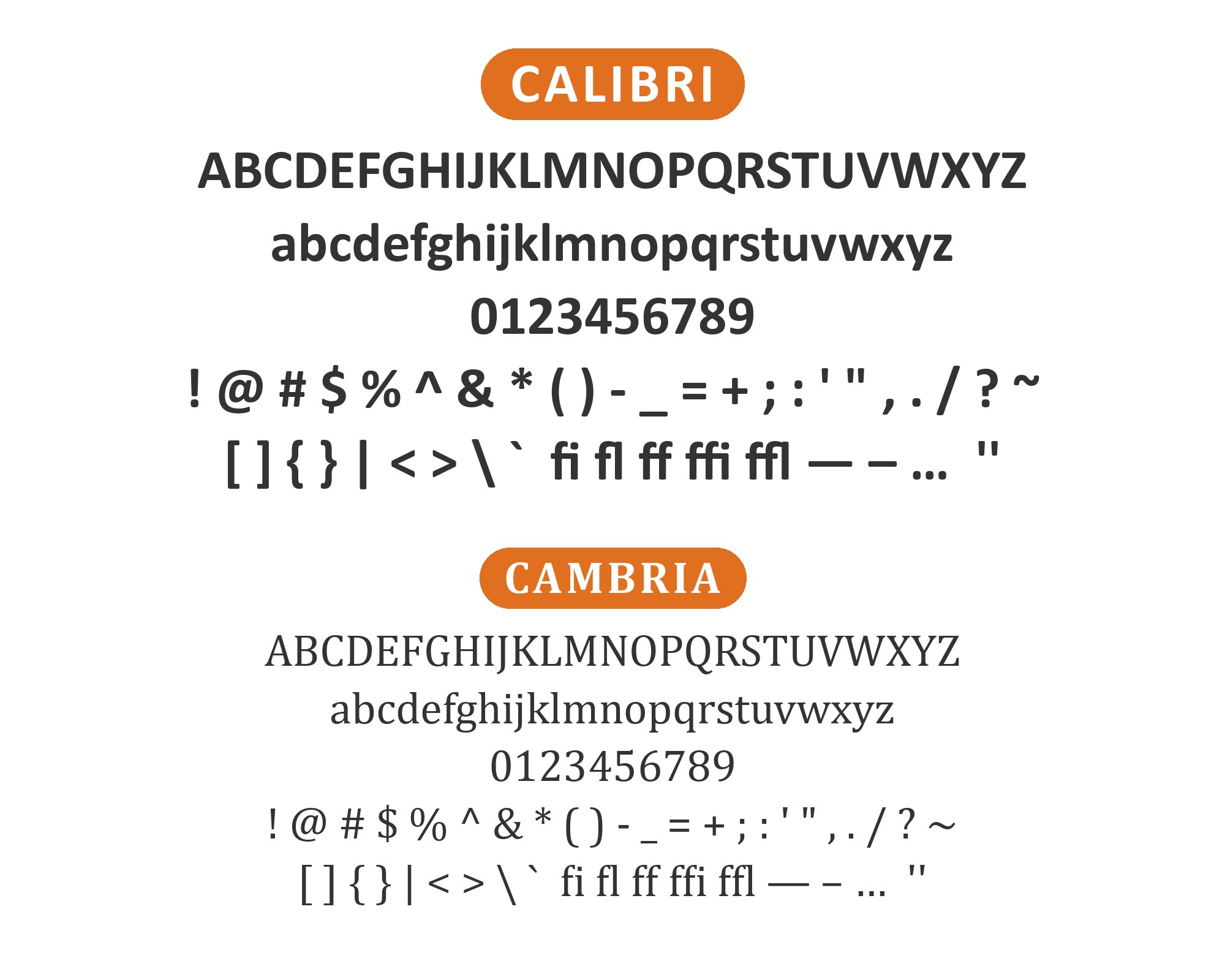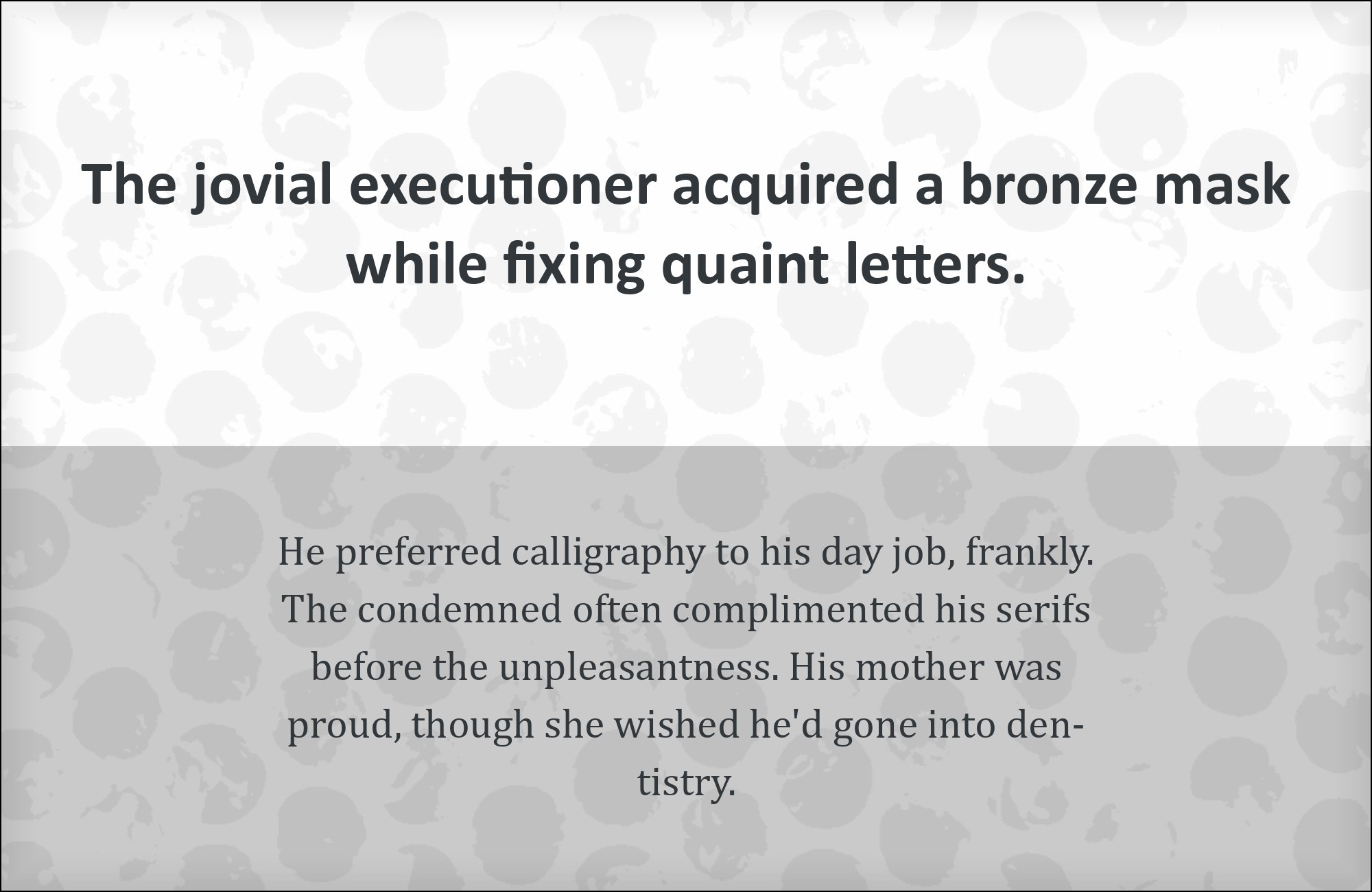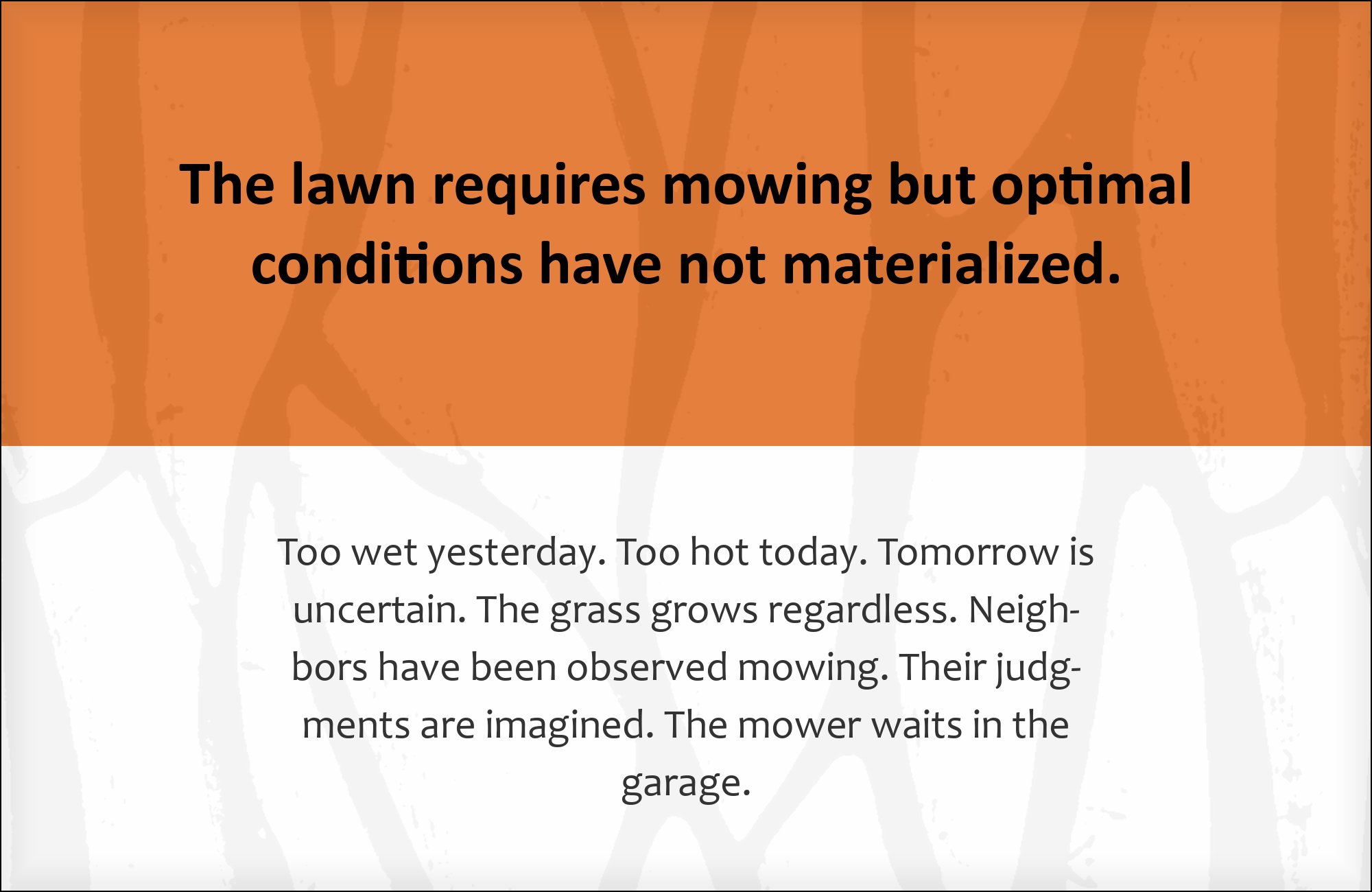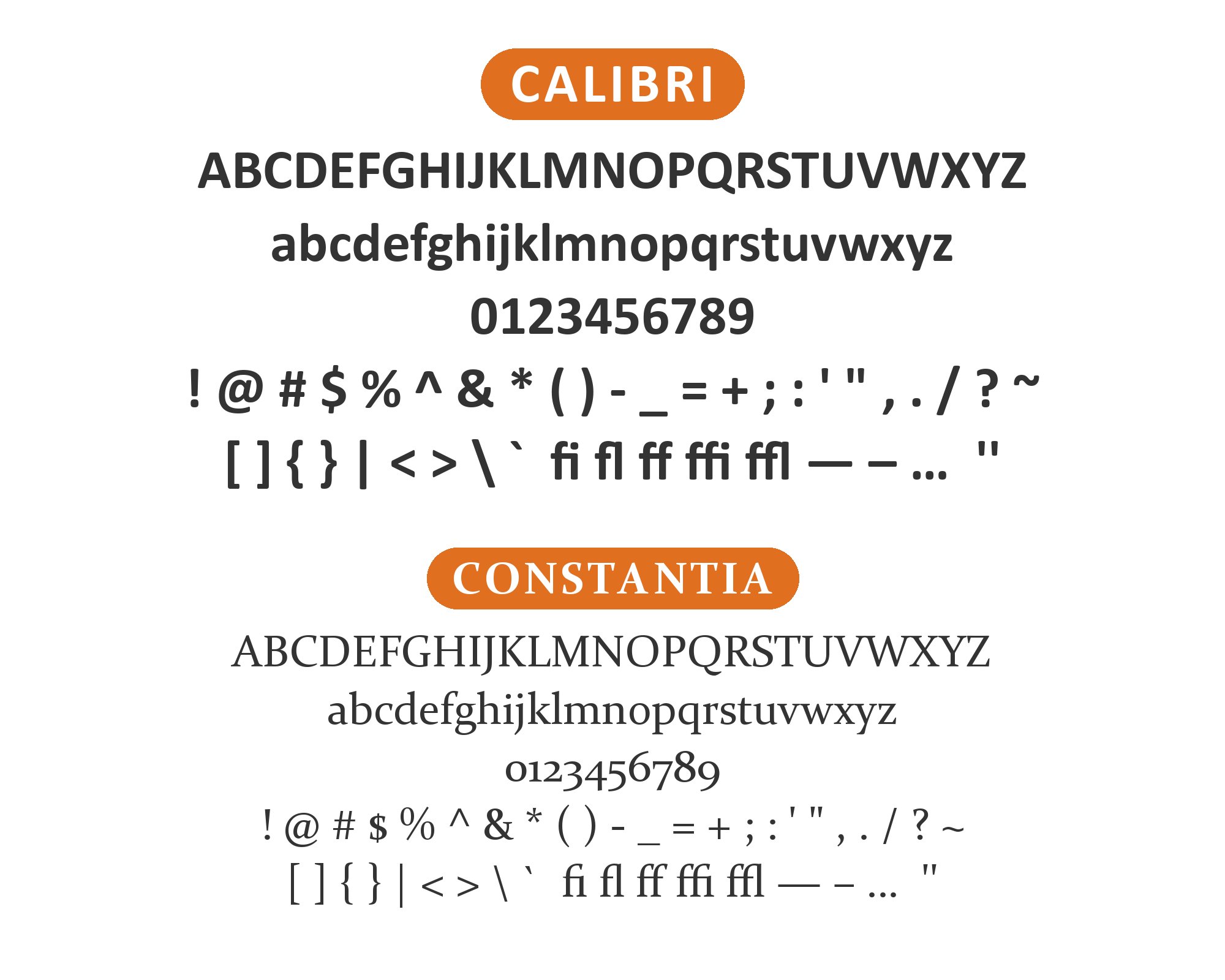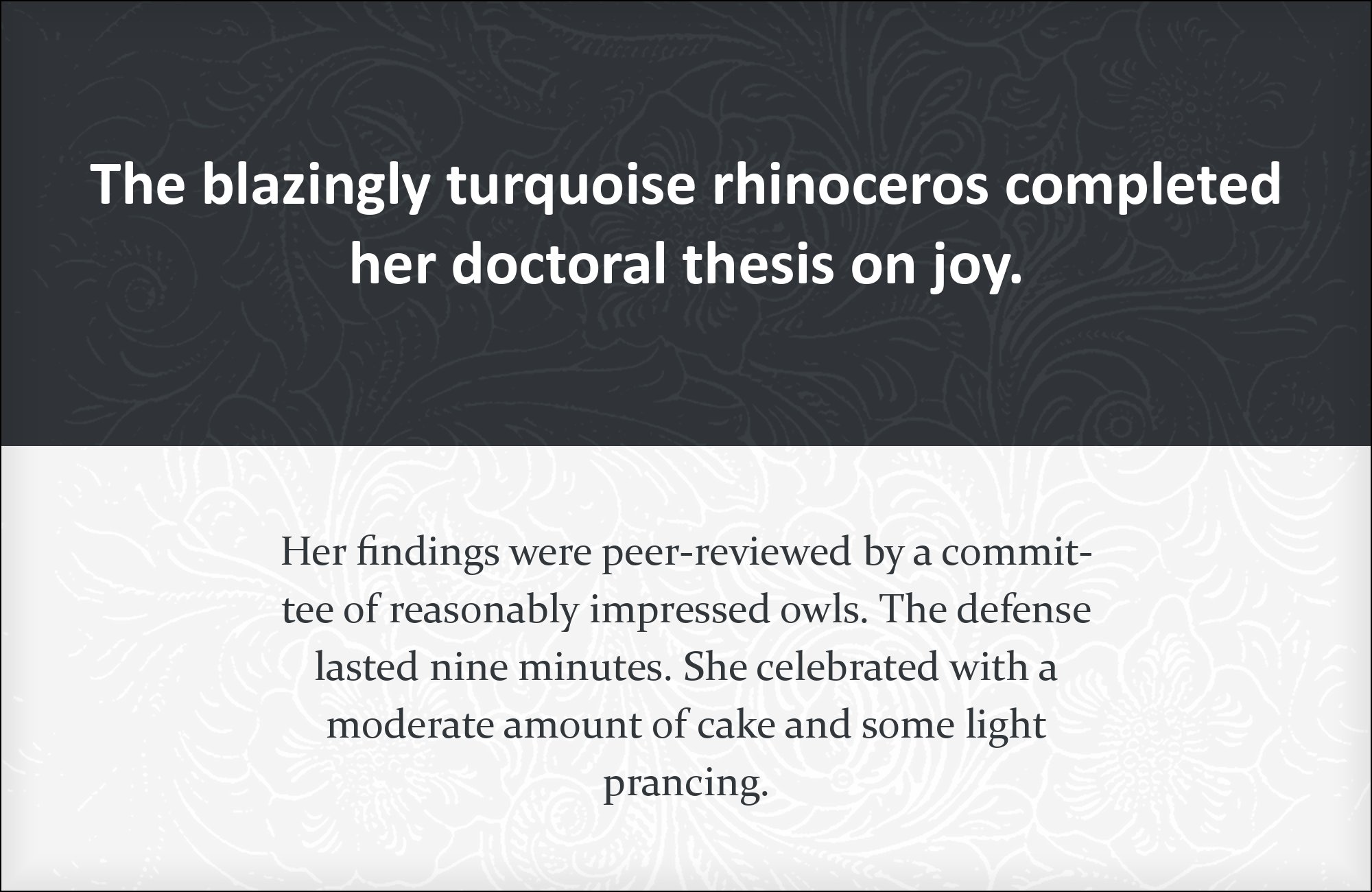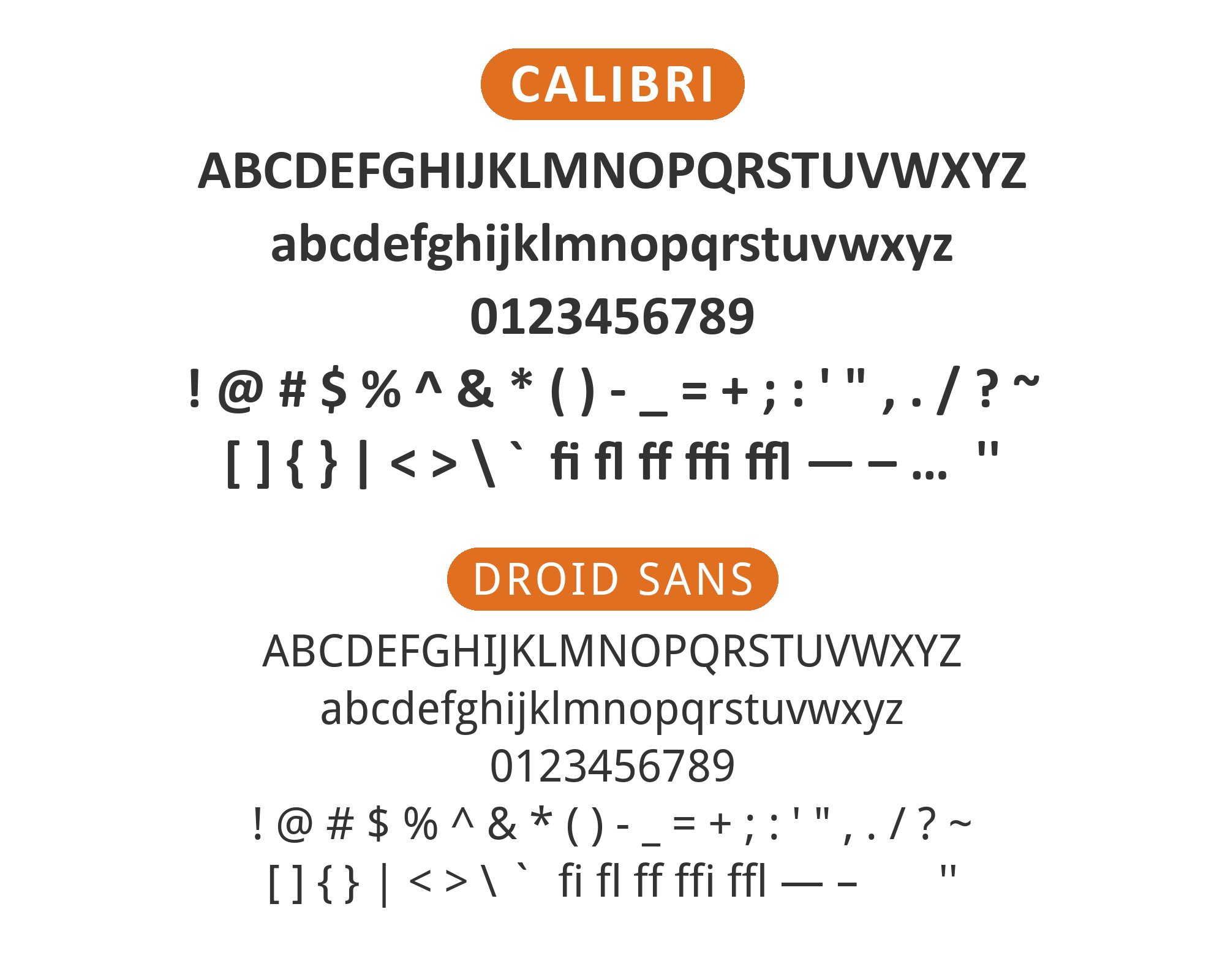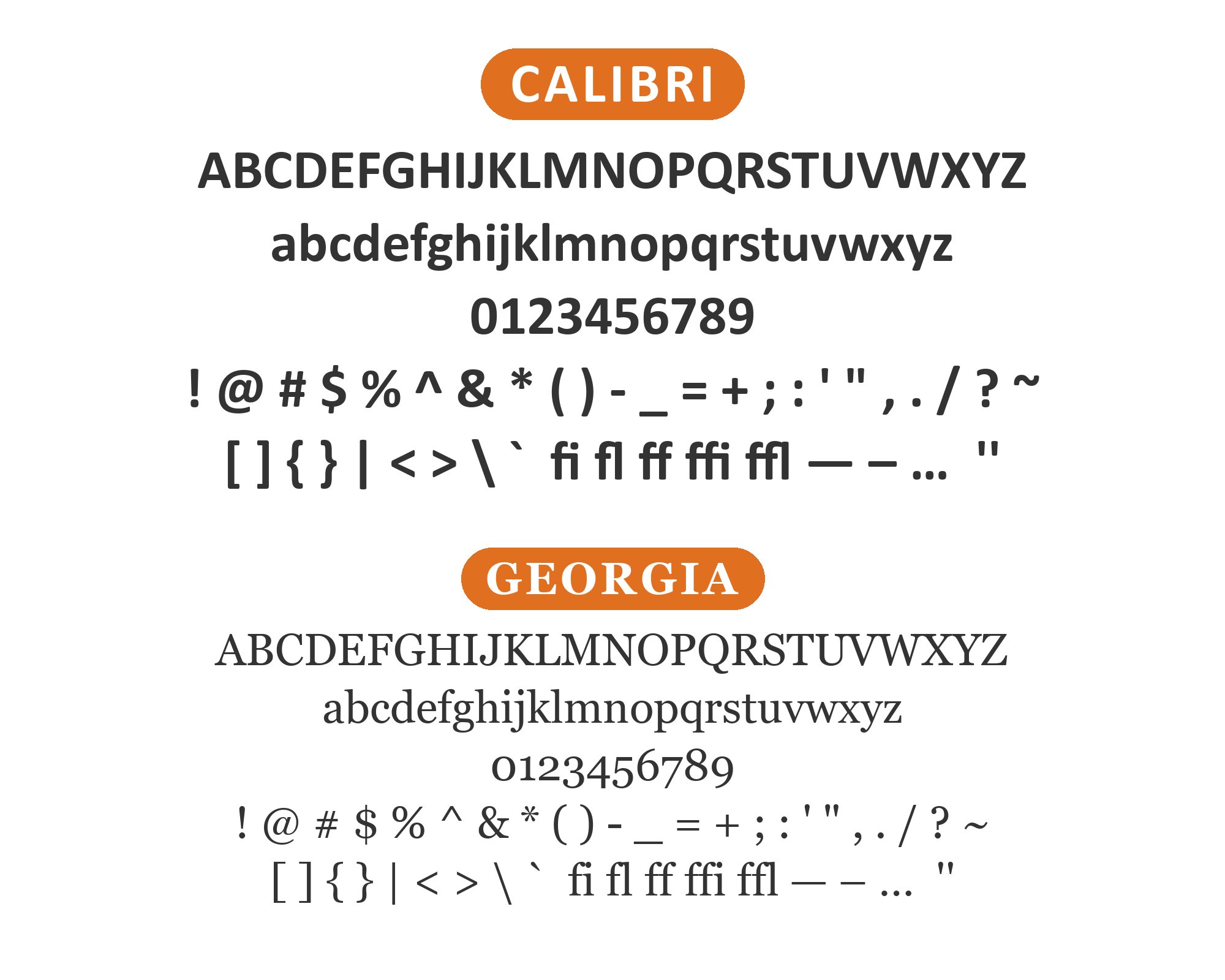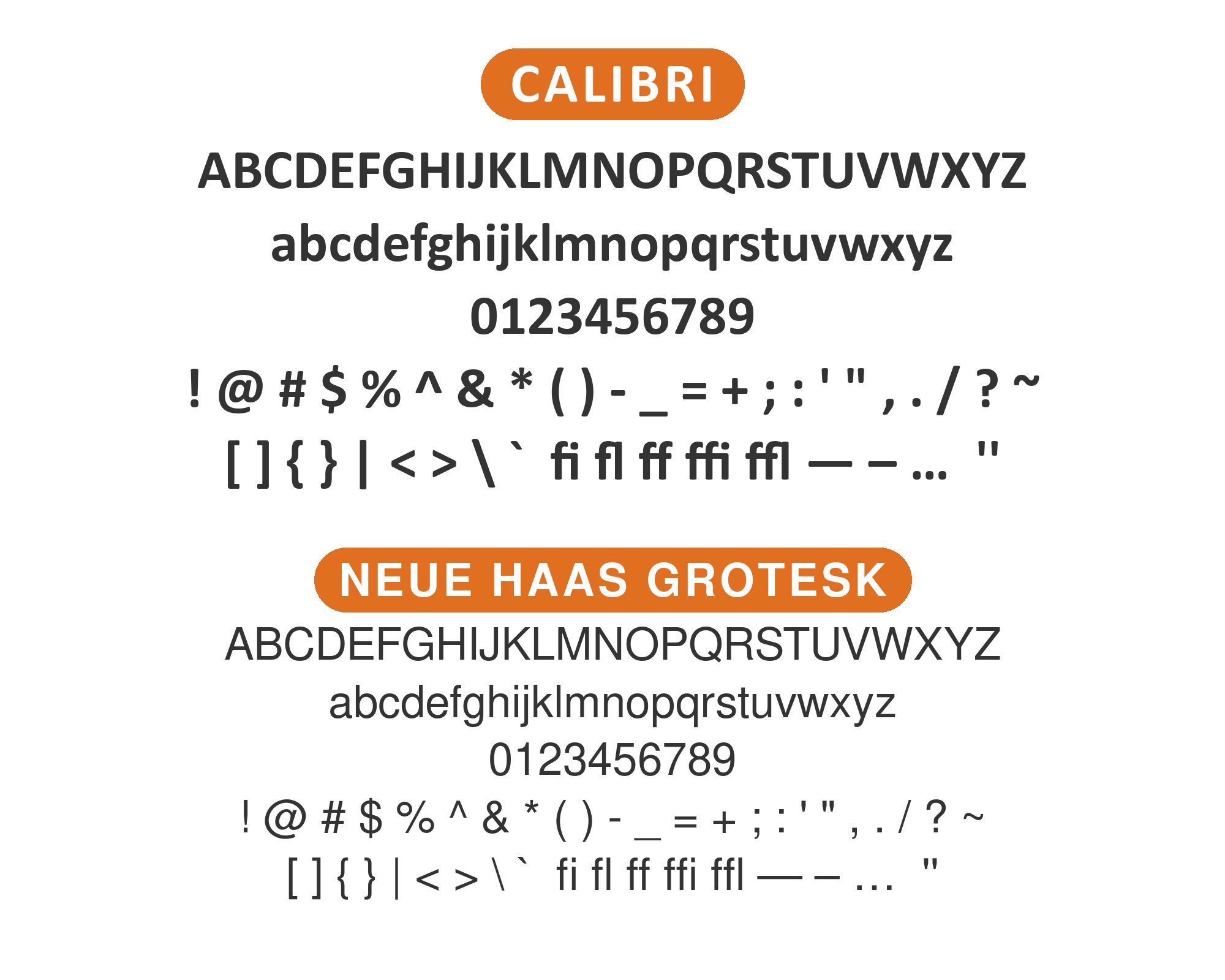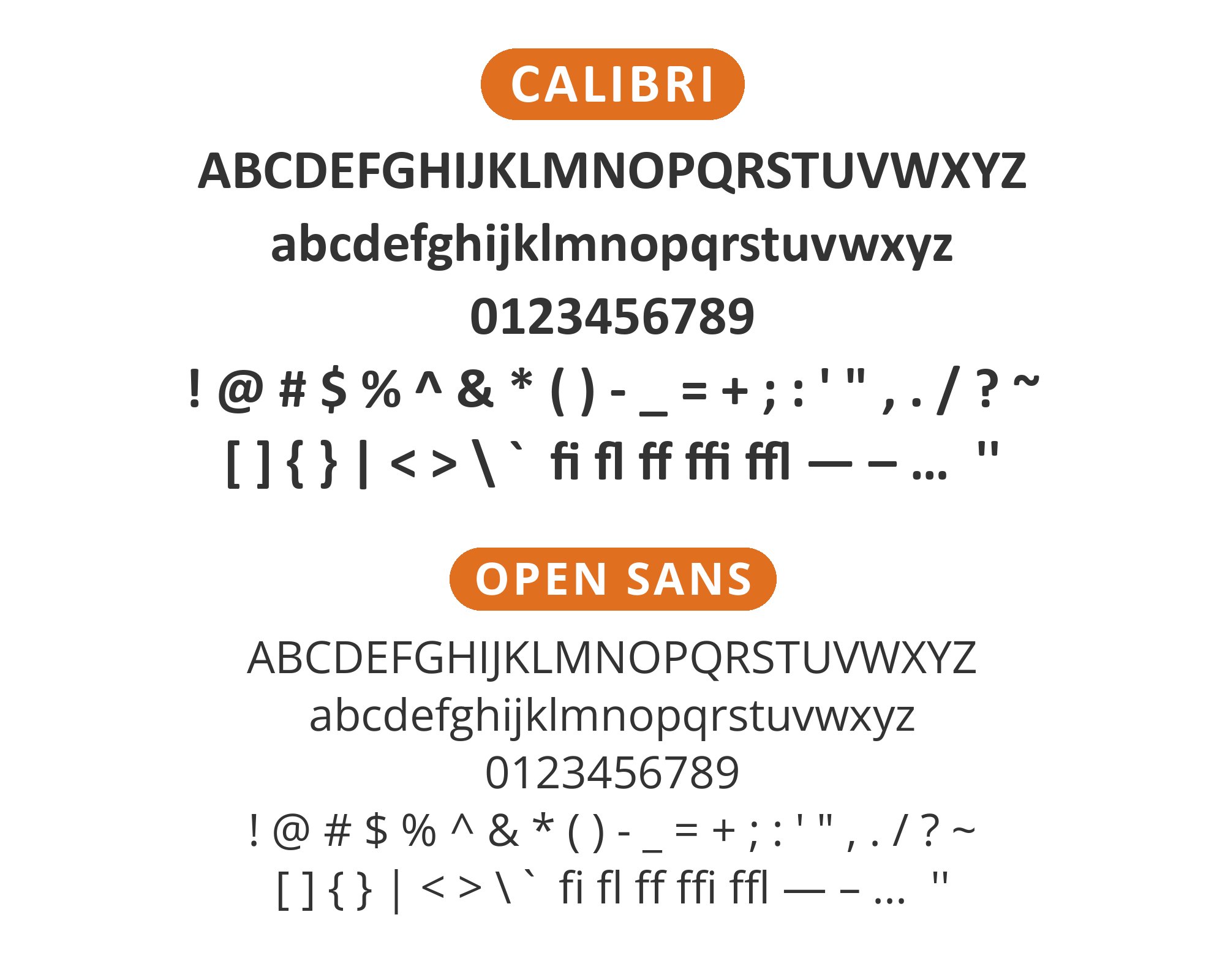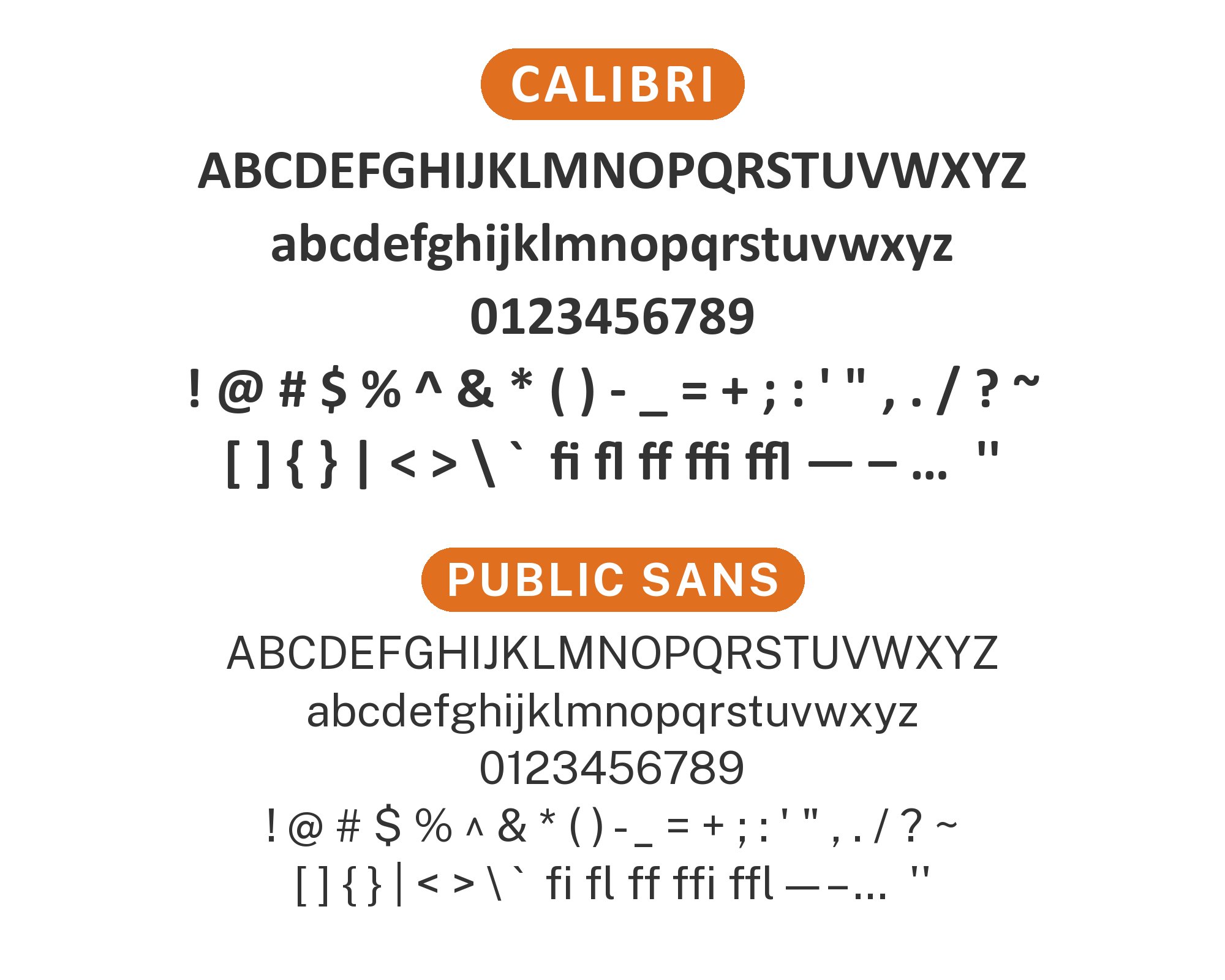
Calibri pairs great with Cambria, Georgia and Candara. All 14 pairings are shown below in real rendered specimens, with the reason each one works.
What fonts go with Calibri? Microsoft’s Office default for seventeen years is a face most people never chose and never quite noticed — a quiet humanist sans built for the screen, gently rounded at every stem corner, that only stepped aside for Aptos in 2024.
Lucas de Groot designed Calibri for Microsoft’s 2004 ClearType Font Collection, a set of fonts built around the same brief: hold up cleanly under subpixel rendering, where thin strokes and sharp corners tend to blur. Calibri answered that brief with rounded stem corners instead of the crisp right angles older sans-serifs relied on, a moderate x-height, and a true italic — drawn as its own shape rather than just slanted — in every weight. It replaced Times New Roman as Word’s default and Arial as the default in PowerPoint, Excel and Outlook in 2007, and stayed there until Aptos took over, which means it is still the typeface underneath a staggering share of the world’s letters, résumés and slide decks.
That context should drive the pairing choices more than pure design logic does. Calibri’s readers are writing documents, not building brand systems, so the most useful partners are the ones already sitting in the font menu: the other ClearType Font Collection siblings shipped alongside it, familiar system serifs, and Calibri’s own weight range, which was built generous enough to often make a second typeface unnecessary. Here are the fonts that pair well with Calibri, starting with the familiar choices.
1. Cambria
Cambria is Calibri’s other half by design, not by accident. Both were designed for Microsoft’s 2004 ClearType Font Collection. When Office 2007 shipped, Calibri replaced Times New Roman as Word’s default font. Cambria’s serifs are sturdy and slightly bracketed, drawn for the same subpixel-rendering brief as Calibri’s rounded sans, so the two never feel like a compromise. Use Cambria for titles and section heads, Calibri underneath for body copy, and the whole document reads as considered rather than accidental.
2. Georgia
Matthew Carter drew Georgia in 1996 for the same problem Calibri solved a decade later — legibility on a screen that was not yet ready for fine detail. The serifs are sturdy and slab-like, the x-height is generous, and the counters stay open even at small sizes. Set against Calibri, the serif/sans split reads as deliberate rather than accidental, because both faces were solving the identical brief a decade apart. Use Georgia for dense body paragraphs and Calibri for captions, labels and short UI-style text; the pairing carries reports, newsletters and long-form web pages without ever feeling mismatched.
3. Candara
Candara shipped in the same ClearType Font Collection as Calibri, built to the same on-screen-clarity brief, and it shows: the strokes are just as rounded, the weight just as even, the mood just as quiet. Because the two share so much DNA, this pairing builds hierarchy through size and spacing rather than a change of style — closer to picking two sizes from one family than combining two different faces. That subtlety suits a memo, an internal deck or a report that wants a second typeface on record without the document looking like it changed its mind halfway through.
4. Constantia
Constantia is the third ClearType sibling worth knowing, a soft, rounded serif whose gentle shapes echo Calibri’s rounded stroke-ends. It reads as gentler and more formal than Cambria, without Cambria’s slightly heavier presence, which makes it useful when a full serif/sans split feels too severe for the document at hand. Set Constantia for pull quotes, captions or a title page, and let Calibri run the body text underneath. It is a quiet, unified pairing, with nothing about it calling attention to itself, which for most business documents is exactly the goal.
5. Open Sans
Steve Matteson designed Open Sans for Google in 2011; it and Calibri are close cousins in temperament: both humanist, both built for small-size clarity, both designed to disappear into the reading experience rather than perform. Because their skeletons are so similar, this pairing works through weight and size contrast instead of a change in style — a heavier Open Sans headline sits comfortably above Calibri body copy without the jump in personality a serif or a geometric sans would introduce. It is a dependable choice for web pages, slide decks and product documentation, and Open Sans is free on Google Fonts if the document needs to leave Office behind.
6. Palatino
Palatino’s calligraphic old-style serifs bring a warmth that plain, engineered Calibri never attempts on its own. Hermann Zapf drew it with broad, humanist proportions and moderate stroke contrast, closer to a broad-nib pen than a ruler. Set as a headline or title face over Calibri body text, it lends a document a measure of gravitas, useful for certificates, formal reports or anything that wants to read as considered rather than convenient. Palatino Linotype comes with Microsoft software, so many Office users can try the pairing without buying another font.
7. Raleway
Raleway takes the opposite approach from the Office-bundled options above: a free Google Fonts release with thin weights, a distinctive lowercase w and a geometric stylistic alternate set. Next to Calibri’s rounder, more neutral forms, it reads as a deliberately stylish headline face over a workhorse body, with separation by character rather than by serif contrast. Reserve it for titles and short display lines where its refinement is visible; at body-text sizes its thin strokes lose the legibility Calibri was built to guarantee. Good for decks, portfolios and anything that wants a little more polish than Office defaults suggest.
“Your AI logo may not be yours to trademark.”
Check who owns it before you print it.
Check My Logo8. Public Sans
Public Sans was developed by the United States Web Design System as a neutral typeface for interfaces, text and headings. Beside Calibri, it can give a heading a firmer edge while Calibri keeps the body familiar. This is a subtle choice, so make the contrast visible through size and weight. Public Sans is free on Google Fonts, making it easy to try in a document or deck that needs a second sans.
9. Franklin Gothic
Franklin Gothic brings a blunt, industrial authority that Calibri’s rounded softness never aims for: tight spacing, square proportions and a heavy default weight drawn for early-twentieth-century newspaper headlines. Set as a title face over Calibri body copy, it gives a document real visual weight at the top of the page without borrowing a serif. Windows includes Franklin Gothic Medium, so that version costs nothing extra to use inside Office. Keep Franklin Gothic to headlines and short labels, and let Calibri carry every paragraph beneath it.
10. Droid Sans
Droid Sans is wider and heavier than Calibri at a matching point size, which makes it useful precisely because the contrast is so mild. Set in a headline over Calibri body copy, it adds visual punch without the personality shift a serif or a display face would bring — one calm sans reinforced by a slightly heavier cousin rather than a true style change. It was designed for Android’s early screens and is still available as a free download, so it is an easy option when a document needs a second sans without introducing a second typographic voice.
11. Roboto Slab
Roboto Slab takes Roboto’s structure and bolts on sturdy, rectangular serifs, giving it a blocky confidence plain Calibri headings cannot supply on their own. Against Calibri’s soft-edged rounded strokes, the slab reads as structural and grounded — a good fit wherever a heading needs to anchor a page of otherwise plain sans body text, which is exactly the job it does in web and app interfaces built around a grid of card-style content. Use it at display sizes only; the heavy serifs are built for headlines and buttons, not paragraphs. It is free on Google Fonts and pairs cleanly with Calibri set at a true reading size.
12. Abril Fatface
Abril Fatface is a pure display face with thin hairlines and strong contrast, made for titles rather than paragraphs. A SlideMembers presentation template lists Abril Fatface and Calibri among its used fonts. Set Abril Fatface large, well above reading size, for a title or cover page, and let Calibri handle everything a reader will actually spend time with. It is free on Google Fonts, which makes it an easy way to give an otherwise plain Calibri document one moment of real drama.
13. Minion
Minion is a restrained old-style text serif, drawn by Robert Slimbach for long-form reading rather than display impact — in spirit, close to what Calibri does for sans text. Run one as a pull-quote or title face alongside Calibri body copy, or the reverse, and both fonts do what they were built for: disappear into the reading experience instead of performing. Minion requires an Adobe Fonts or Creative Cloud license, so it suits a design-conscious report or publication more than a quick memo. Where it is available, it adds a literary credibility Calibri’s engineered neutrality does not attempt on its own.
14. Neue Haas Grotesk
Neue Haas Grotesk is the historically faithful reissue of the original 1957 Helvetica, and it carries a cooler, more mechanical neutrality than Calibri’s warm, rounded humanism. Pairing the two builds hierarchy on temperature rather than on the serif/sans or weight contrasts used everywhere else on this list — a cold grotesque headline over a warm humanist body. It is a licensed, professional-grade face, best reserved for branding and premium print where the subtlety of that contrast will actually be noticed. In a standard Office document it is overkill; in a designed annual report or brand system, it is a genuinely distinctive choice.
There are no fixed rules for pairing Calibri, only a practical point worth remembering: many readers already have several of these fonts. Cambria, Candara and Constantia arrived in the same font collection; Palatino Linotype comes with Microsoft software. Choosing well here is less about hunting for something new and more about noticing what is already sitting in the font menu.
Test any pairing at the sizes the document will actually use — a Franklin Gothic headline that looks sharp in a specimen can crowd a title page, and Abril Fatface disappears entirely below display size. Set real text, in the real document, before deciding.